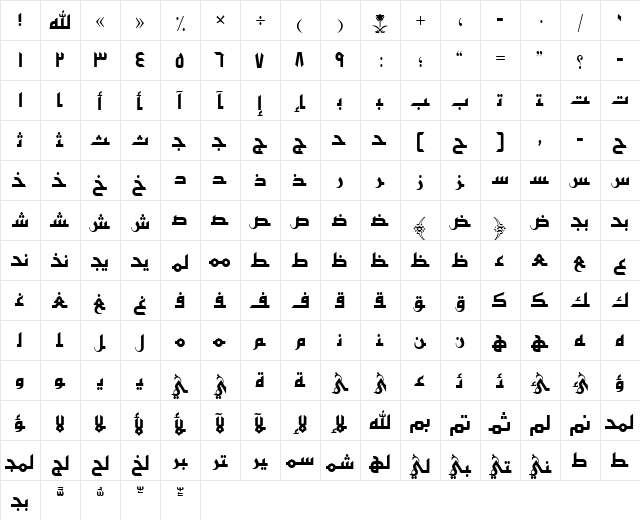
AYM Shafa S_U normal. Normal
AYM Shafa S_U normal. takes a measured approach to typography — its balanced proportions and neutral character make it a reliable workhorse for both digital and print work.